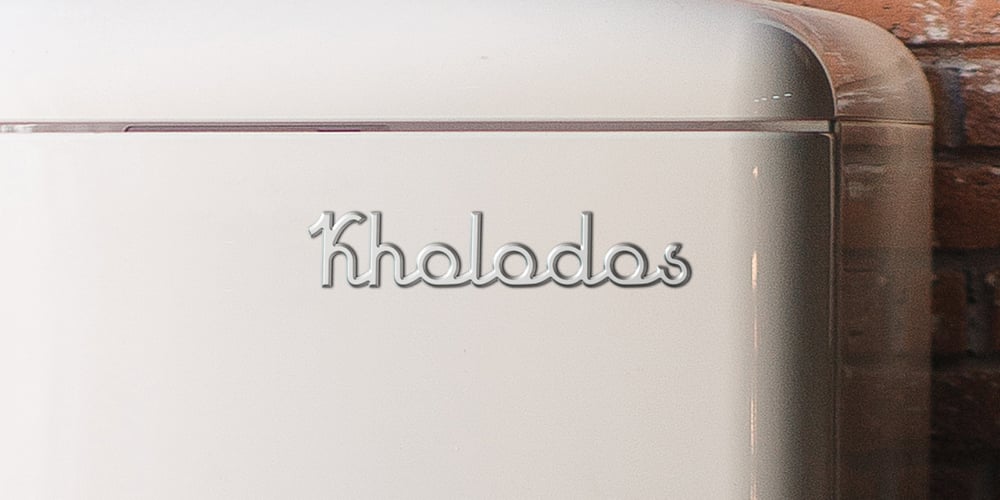
Kholodos
Kholodos font
Kholodos Font Family was designed by Grigorij Gushchin and published by Grigorij Gushchin. Kholodos contains 1 styles and family package options. Kholodos – the slang name of the refrigerator in Russia. This font contains 383 characters, supports Latin, Cyrillic, Latin-1 Supplement, and also has the symbols of the Ukrainian and Belorussian alphabets. A font feature is a large number of alternates that define the connection of letters. Kholodos – the perfect solution for vibrant retro lettering.